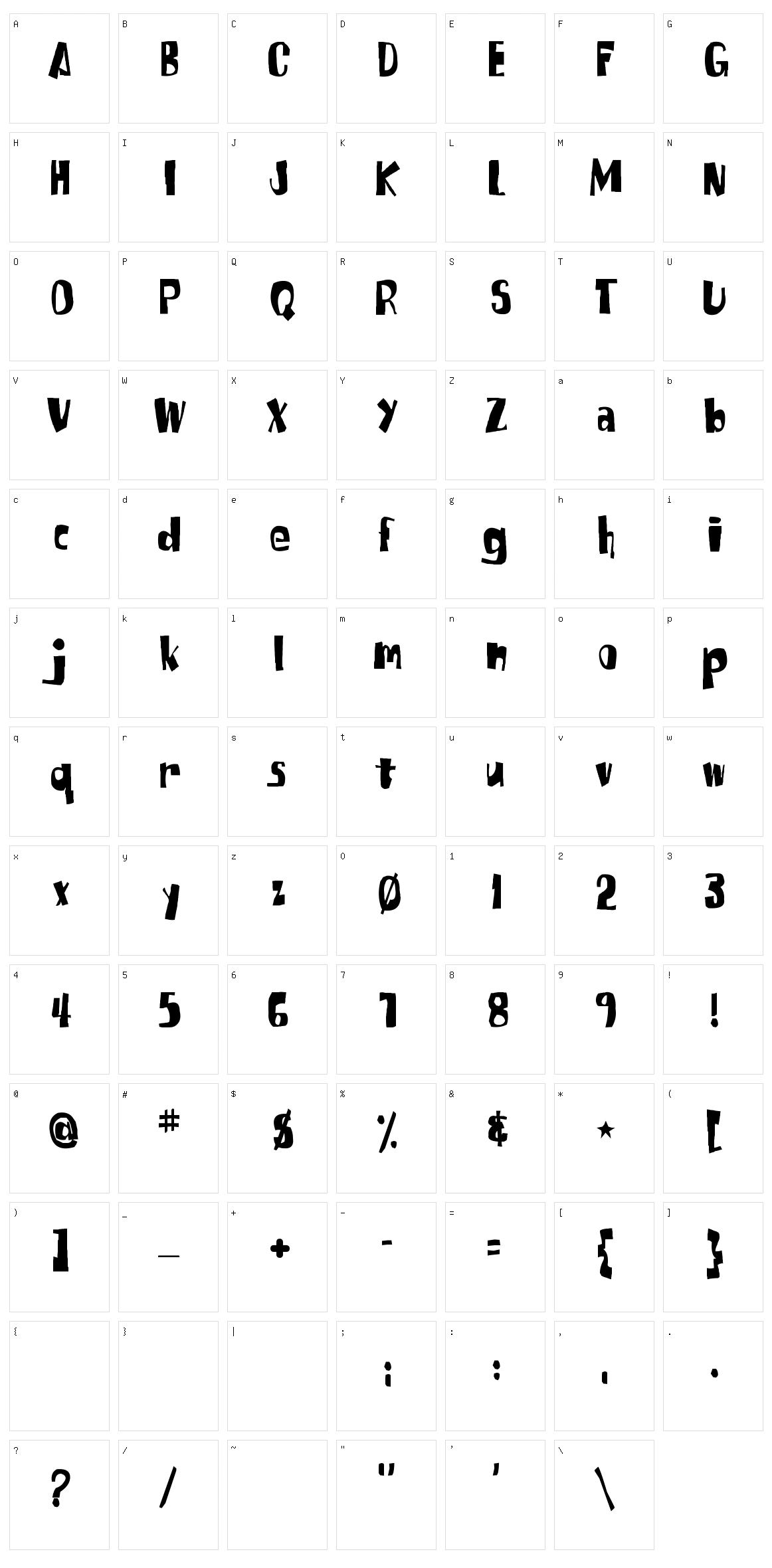
The free font SpongeFont Square Type is carefully designed by Johnny Bluejeans, showcasing a thoughtful balance of creativity and usability and falls under the Cartoon font style. When you download the ZIP file, it contains only 11.15 KB of font files, making it lightweight and quick to download. Please review the license details below to understand permitted usage and distribution rights. If license information is not available, we recommend using this font for personal projects only or contacting the author directly for commercial usage permissions.